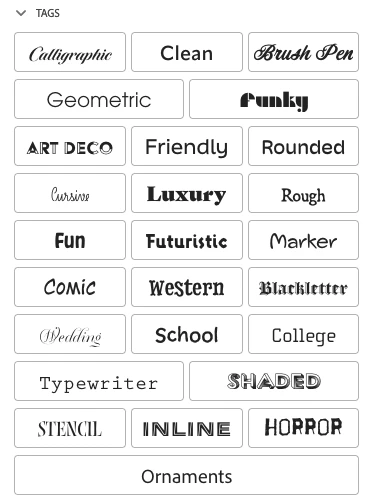
Book cover typefaces
In "Goolge fonts" you can use "Display"(a category of typefaces) to search for book cover typefaces. I see that Adobe Fonts does not have this category. Does anyone know the category name for Display/Book cover fonts, please!? Thank you for any help you can provide!
THE SIMPLE ANSWER:
There are various ways to classify typefaces. But in my experience, there is no formal classification system for deciding which typefaces are good for book covers.
There will always be lists of typefaces, compiled by specific people to suit specific tasks. Those lists however, are a matter of personal taste. And your taste will most likely differ from the people compiling those lists.
Type designers do create certain typefaces to match specific functional needs. A good example: text typefaces, which are designed to be used for setting large amounts of small body text like you’d find in novels, textbooks, magazines, and newspapers.
Text typefaces can also be used at larger sizes, but there are certain typefaces with fine features and details that don’t work well at smaller sizes. These type designs are sometimes called display typefaces.
My best recommendation would be to first look at all the display typefaces available on Adobe Fonts: they should be generally good for book covers. Simply type the word ‘display’ in the search box on the Adobe Fonts website, and you’ll be presented with a selection of 130 typeface families to choose from (as of 15 August 2022). When you find the typeface family you like, take care to activate the fonts in that typeface that have been designed specifically for typesetting at large sizes.
THE MORE DETAILED ANSWER:
One of the more popular typeface classification systems is Vox–ATypI, developed in the 1950s and supervised by the International Typography Association (ATypI). But even this system is under serious review for being inadequate for anything but the most conventional designs that use the Latin alphabet.
It isn’t easy to classify the complex visual properties of typefaces into simple categories. Adobe Fonts has its own methods; Google Fonts uses other methods. One of Google’s classifications is ‘Categories’, which breaks their typeface collection of 1442 typefaces (as of 15 August 2022) into five groups:
• Serif (283 typefaces)
• Sans Serif (532 typefaces)
• Display (377 typefaces)
• Handwriting (221 typefaces)
• Monospace (29 typefaces)
If you choose ‘Display’ from the ‘Categories’ menu, you’ll be presented with a list of 377 typefaces. What does Google mean when they classify a typeface as ‘Display’? If you look at the visual appearance of each of these 377 typefaces, there doesn’t really seem to be any property that makes them special or distinct from the other 1065 typefaces.
But there’s one thing for certain: if Google classifies a typeface as ‘Display’, it cannot be classified as ‘Serif’, ‘Sans Serif’, ‘Handwriting’, or ‘Monospace’. Just to illustrate how vague Google’s classification system is: in their ‘Monospaced’ category is a typeface called ‘Noto Sans Mono’, which could also be classified in the ‘Sans Serif’ category. But it isn’t.
Another thing to consider: should you use a Google typeface that’s not classified as ‘Display’ on book cover designs? There’s nothing stopping you from doing so. And in some cases, there are non-‘Display’ typefaces on Google’s site that would work very well on book covers.
My recommendation would be to trust your own instincts when choosing typefaces for your book cover designs. Adobe Fonts does offer a variety of ways to search for and select typefaces.
One method is using the ‘Tags’ filter when browsing the entire library. Keep in mind however, that these tags may be somewhat subjective. For example: how do you precisely classify a typeface as ‘Fun’ or ‘Futuristic’? What may look futuristic to one person may look old-fashioned to another person.
Another method is to search by type designer:
https://fonts.adobe.com/designers
This is useful if you already like a typeface created by a specific designer. Most designers have a signature style, which gives a certain consistency to their different typefaces. Using multiple typefaces by the same designer can sometimes be useful for adding complexity to your designs.
Yet another method is to search by typefoundry:
https://fonts.adobe.com/foundries
Some foundries – like Frere-Jones Type, Martin Majoor, TypeTogether, Underware, and Victoria Rushton – only publish typefaces designed by their proprietors. Other foundries – like Adobe Type, Canada Type, Emigre, Monotype, and P22 – publish typefaces by a range of designers. Like type designers, many typefoundries publish particular sets of typeface styles. That way, it’s easier to choose from a limited selection, rather than trawl through thousands of typefaces from dozens of foundries.